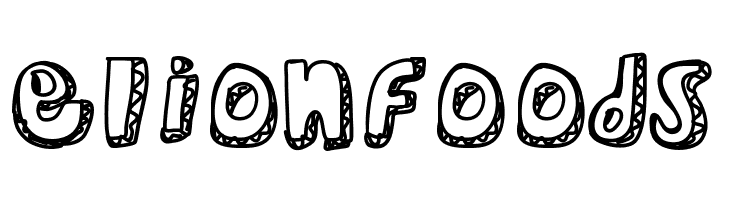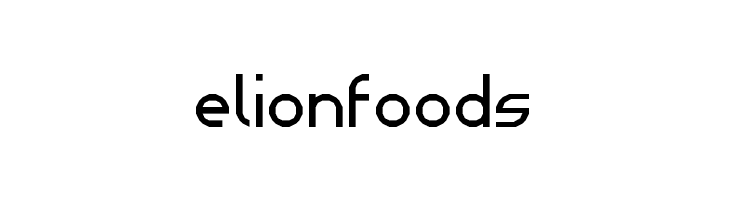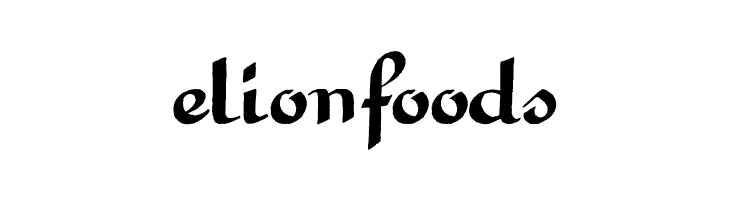
A bold, playful handwritten font with thick, rounded strokes.
A playful, handwritten font with tall, narrow letters and a casual style.
A geometric, angular font with sharp lines and a dynamic, futuristic style.
A versatile collection of monochrome social media logos, designed for easy recognition and integration.
A playful, hand-drawn font with bold outlines and decorative patterns.
A geometric, blueprint-inspired font with overlapping linear elements.